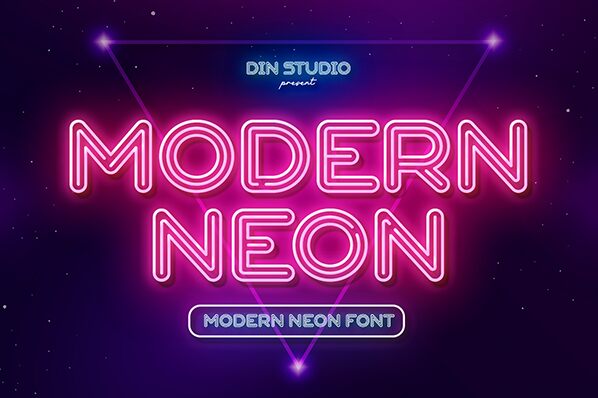
Modern Neon font, designed by Ditatype, captivates with its futuristic techno aesthetic. This display font boasts an eye-catching design characterized by bold lines and a striking, elongated appearance that commands attention. Its vibrant energy and dynamic forms create a visual rhythm that feels both contemporary and playful.
Ideal for headlines, posters, or any project craving a touch of modern flair, Modern Neon infuses designs with a lively spirit. Its unique style enhances branding for tech companies or events that want to stand out while remaining stylishly edgy. Whether used in digital media or print, this font transforms ordinary text into an electrifying statement piece that resonates with the pulse of today's design landscape.
Modern Neon